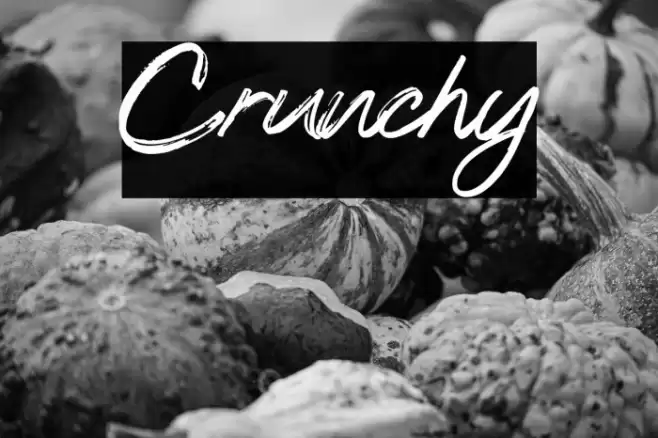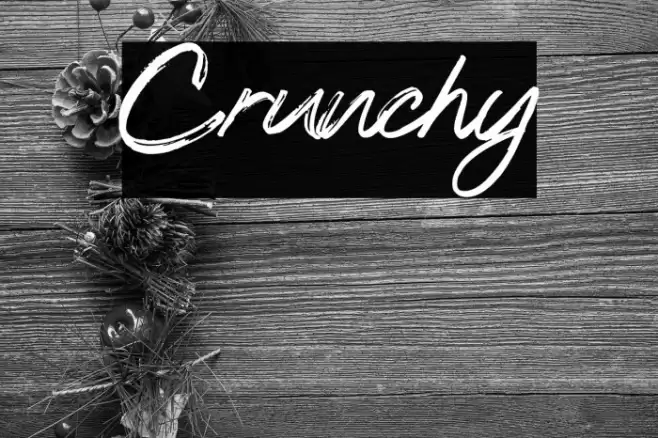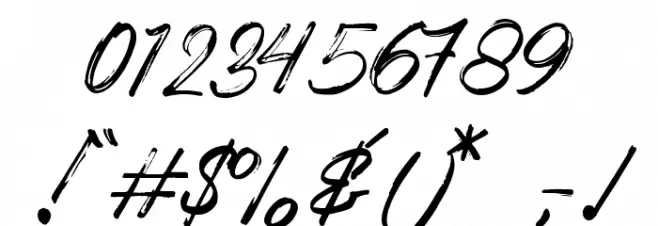
Crunchy Font
Crunchy Description
This font features a dynamic and energetic script style, characterized by its bold, brush-like strokes and slightly irregular letterforms. The uppercase letters exhibit a sense of movement and flair, while the lowercase letters maintain a consistent flow, enhancing its handwritten appeal. The numerals and special characters are crafted with the same expressive quality, making them stand out with a unique personality. This font's overall appearance is both artistic and modern, with a touch of casual elegance. The strokes vary in thickness, adding to the font's lively and textured look, making it suitable for creative and eye-catching designs.
A bold, brush-style script font with dynamic, expressive strokes from Uncategorized fonts.
- Proposed Projects: Ideal for branding, posters, invitations, and any project requiring a lively, artistic touch.